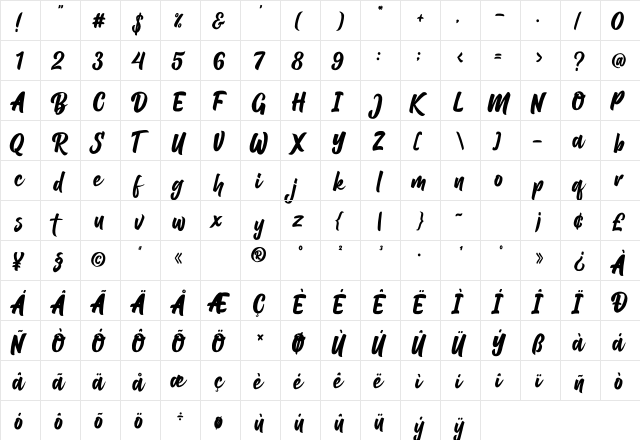
Balhgi Rizetons Regular
| Foundry | StringLabs |
| Designer | Virgiawan Listanto |
Design Context for Balhgi Rizetons Typeface
Balhgi Rizetons is a composed and adaptable typeface that performs quietly and consistently across a wide range of design contexts.